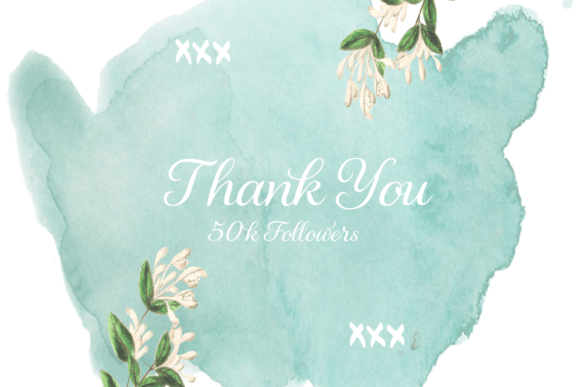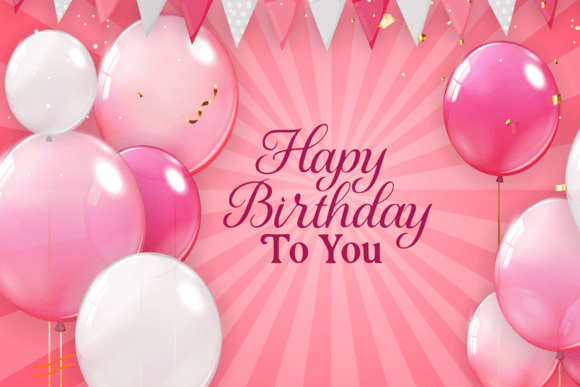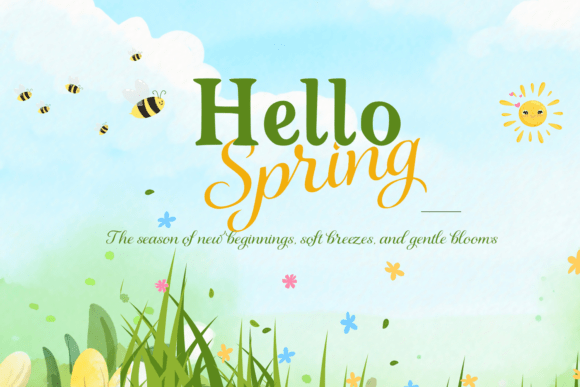
Introduction to Murisa Celine Font
Imagine you’re working on a creative project, pouring your heart and soul into every detail. The words flow effortlessly, but the text needs that extra oomph to truly shine. That’s where the Murisa Celine Font comes in – a masterpiece of elegance and expression that elevates your design to new heights.
As a designer, you know the value of a high-quality font that can elevate your work and leave a lasting impression. Murisa Celine Font is more than just a design resource – it’s a tool that helps you communicate your message with precision and style. With its transparent background and exquisite versatility, this font is perfect for luxury branding, high-end invitations, and editorial headlines.
Key Features of Murisa Celine Font
- High-quality, elegant script font with a transparent background, ideal for creative projects and design resources.
- Designed for use in creative projects, Murisa Celine Font is perfect for wedding invitations, greeting cards, and other special occasion designs.
- Unique characteristics include swashes, ligatures, and contextual alternates, making it a versatile and expressive design resource.
Honest Review: Murisa Celine Font
I recently came across the Murisa Celine Font and was excited to give it a try for my creative project. The first thing I noticed was the high quality of the font, with crisp and clean lines that made it perfect for digital use. The font is a free download, which is always a bonus for designers on a budget.
One of the things that works well with the Murisa Celine Font is its versatility. It can be used for a variety of creative projects, from web design to print materials. The font is also highly customizable, allowing you to adjust the size, color, and opacity to suit your needs.
Here are some of the key features that I liked about the font:
- High-quality design with transparent background
- Perfect for digital use
- Highly customizable
However, there are a few limitations to be aware of: ⚠️ the font may not be suitable for very large or small text sizes, and it may not be compatible with all design software.
Overall, I was impressed with the Murisa Celine Font and would definitely recommend it as a design resource. With its high quality, versatility, and free download option, it’s a great choice for designers looking for a reliable font.
The Murisa Celine Font is a versatile design resource suitable for various creative projects, including business cards, logos, and social media graphics. Its high-quality design and transparent background make it an ideal choice for projects requiring a touch of elegance.